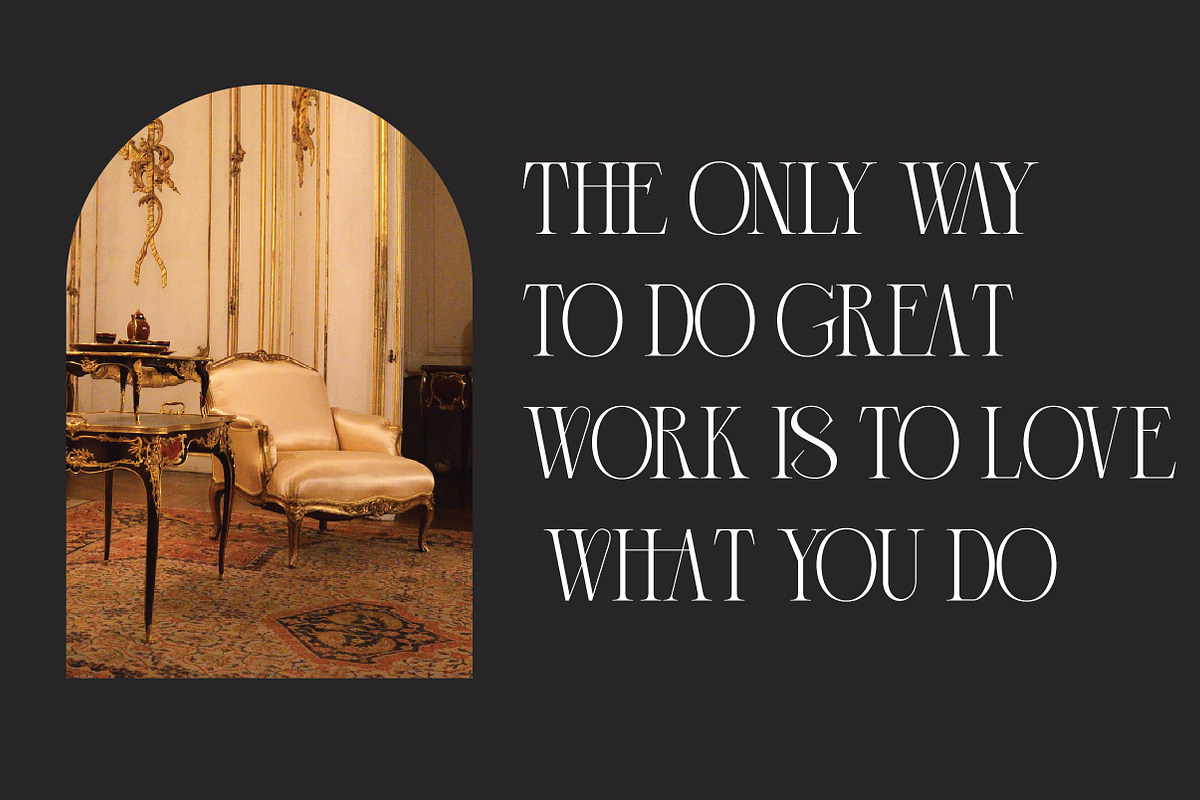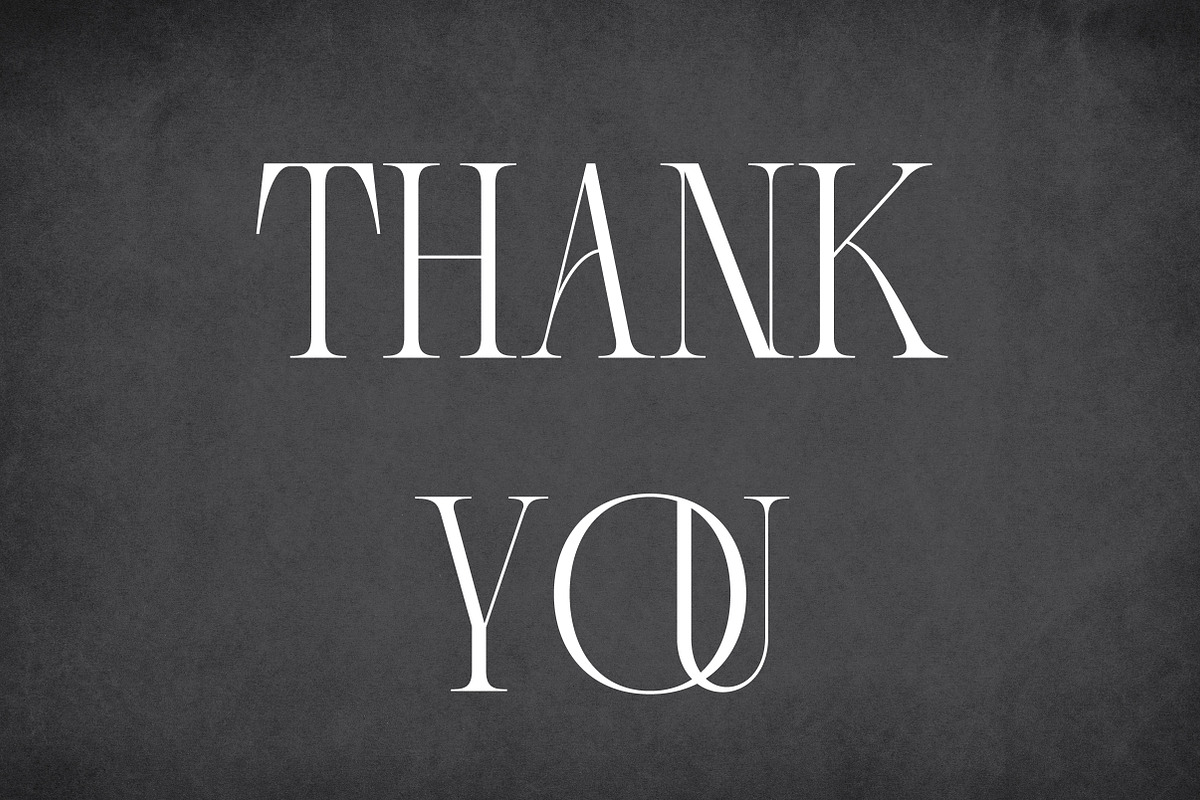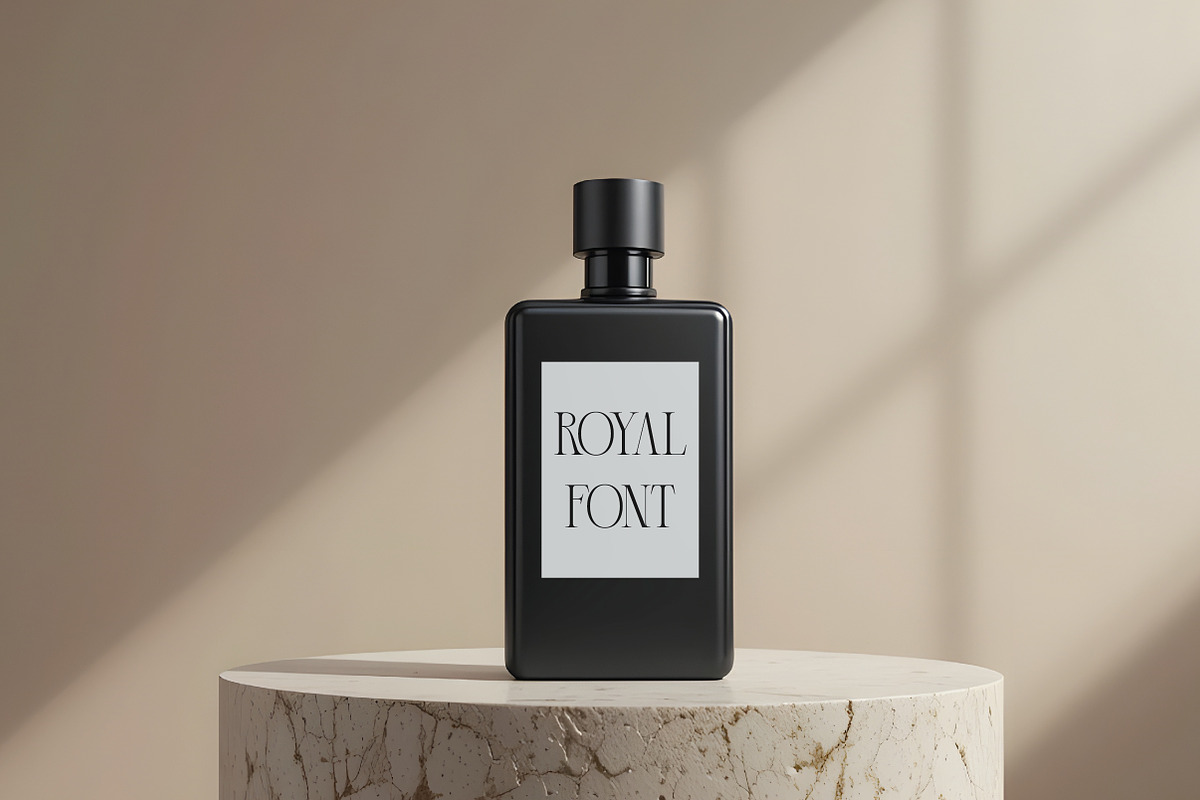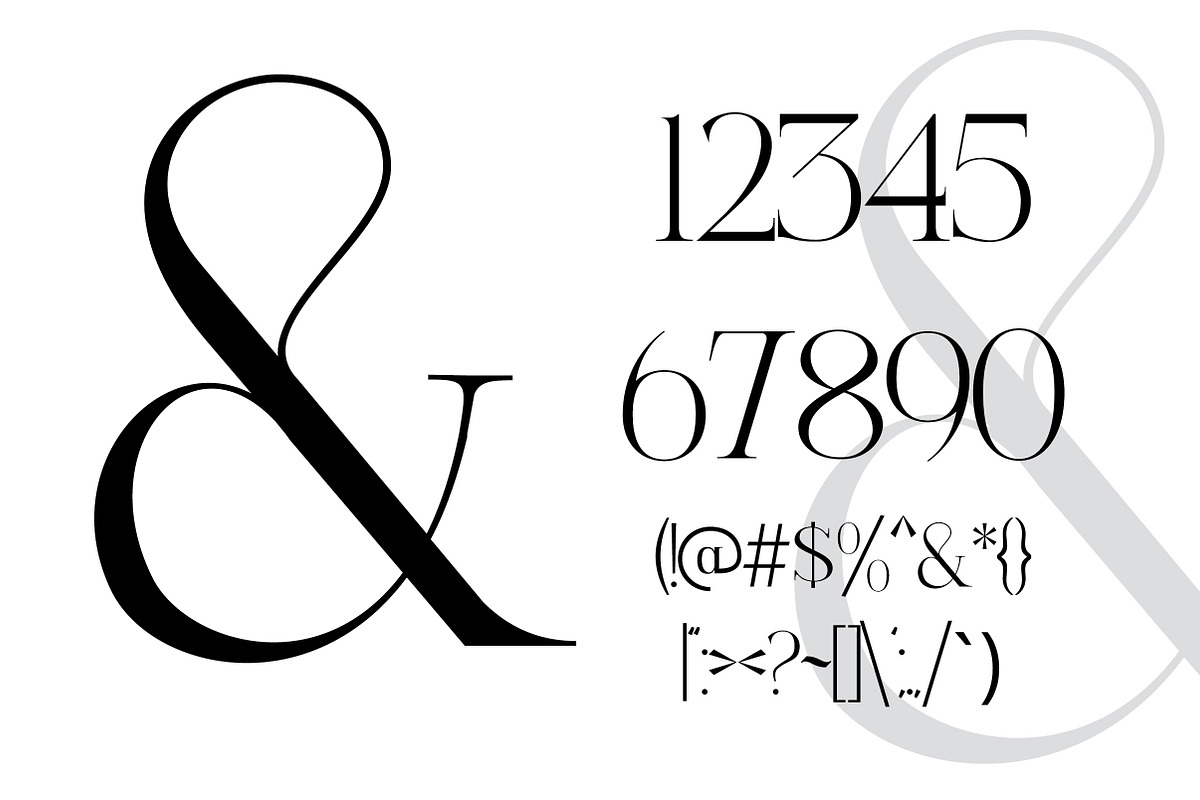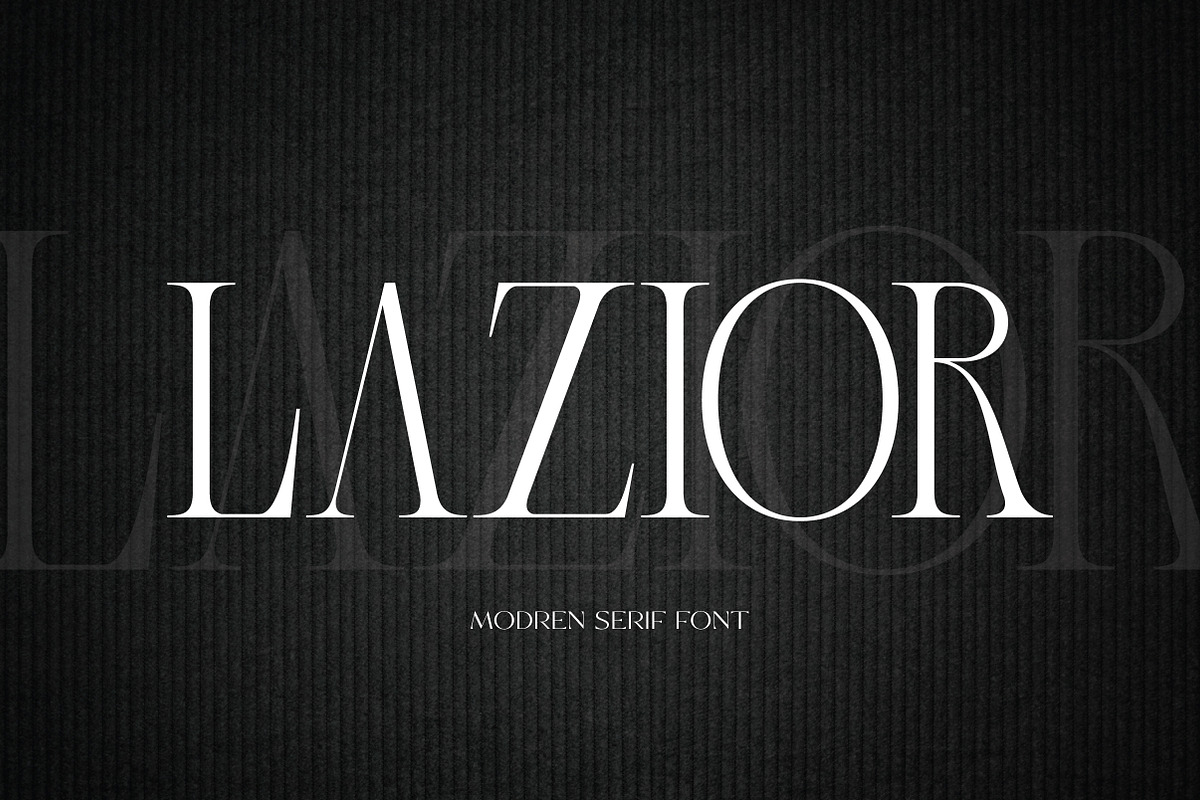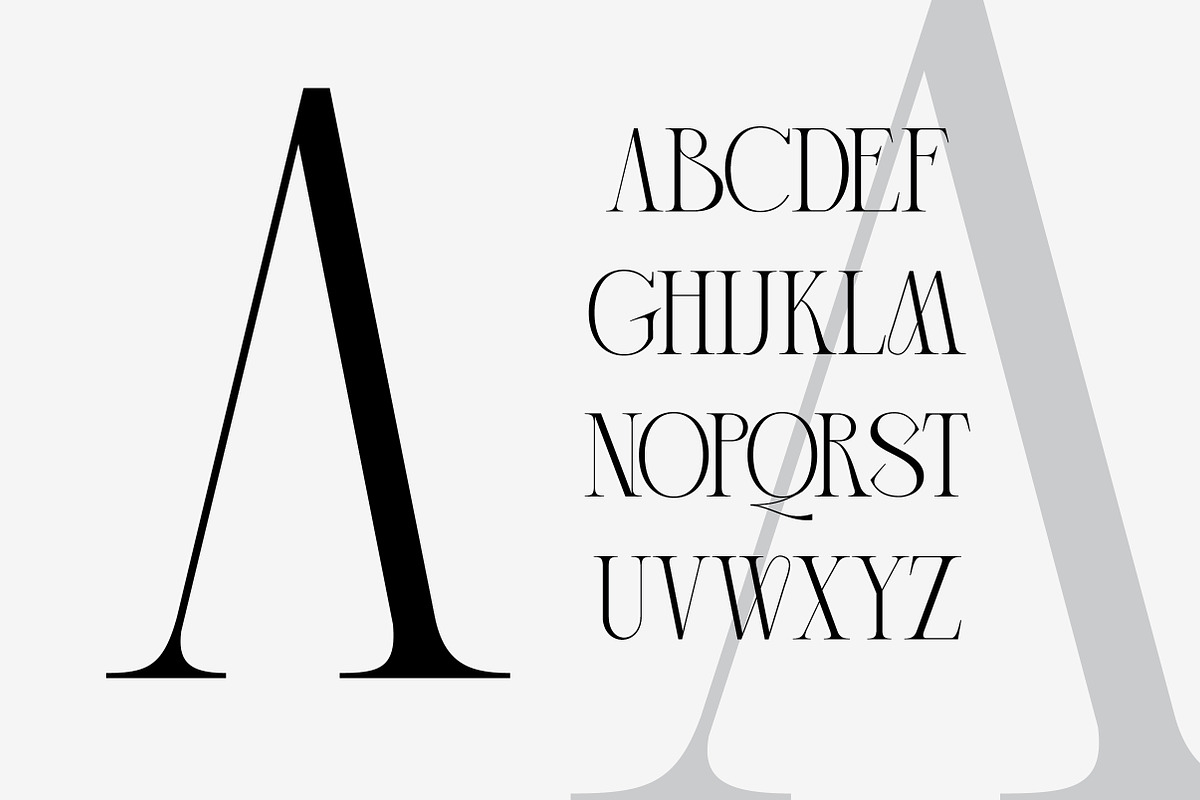
Lazior | Contemporary Serif Typeface
Lazior is a contemporary serif typeface that blends modern sharpness with timeless elegance. Featuring crisp serifs, smooth curves, and well-proportioned letterforms, Lazior Regular is ideal for branding, editorial layouts, packaging, posters, logos, and high-end digital design. Its refined structure delivers excellent legibility, making it suitable for both large headlines and extended body text. Whether in print or digital formats, Lazior adds a sophisticated and confident tone to any creative project.
Lazior is a must-have serif font for designers who value elegant styling, clean structure, and modern versatility.